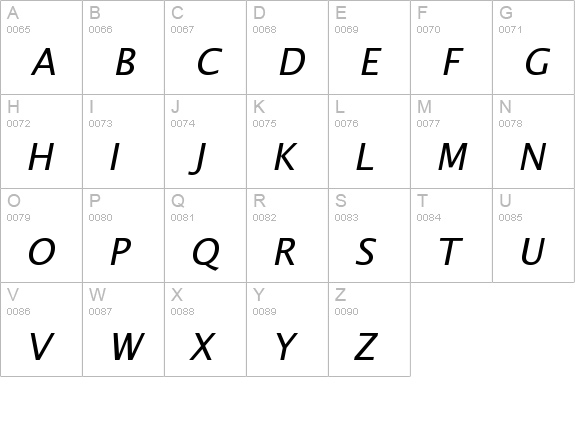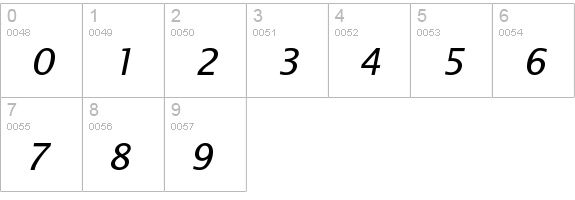
LucidaSansEF-RomanIta Font Details
LucidaSansEF-RomanIta is a stylish and elegant italic font that brings a touch of sophistication to any design project. With its sleek and modern appearance, this font is perfect for adding a touch of class to your projects. The italicized letters give a sense of dynamic movement and flow, making it an excellent choice for titles, headings, and other eye-catching elements. What sets LucidaSansEF-RomanIta apart is that it is available for free download at FontsMarket.com. This means that you can easily access this beautiful font without any cost, making it a fantastic option for both personal and commercial use. So whether you're working on a website, a brochure, or any other creative project, LucidaSansEF-RomanIta is a versatile and attractive font choice that will help your designs stand out.